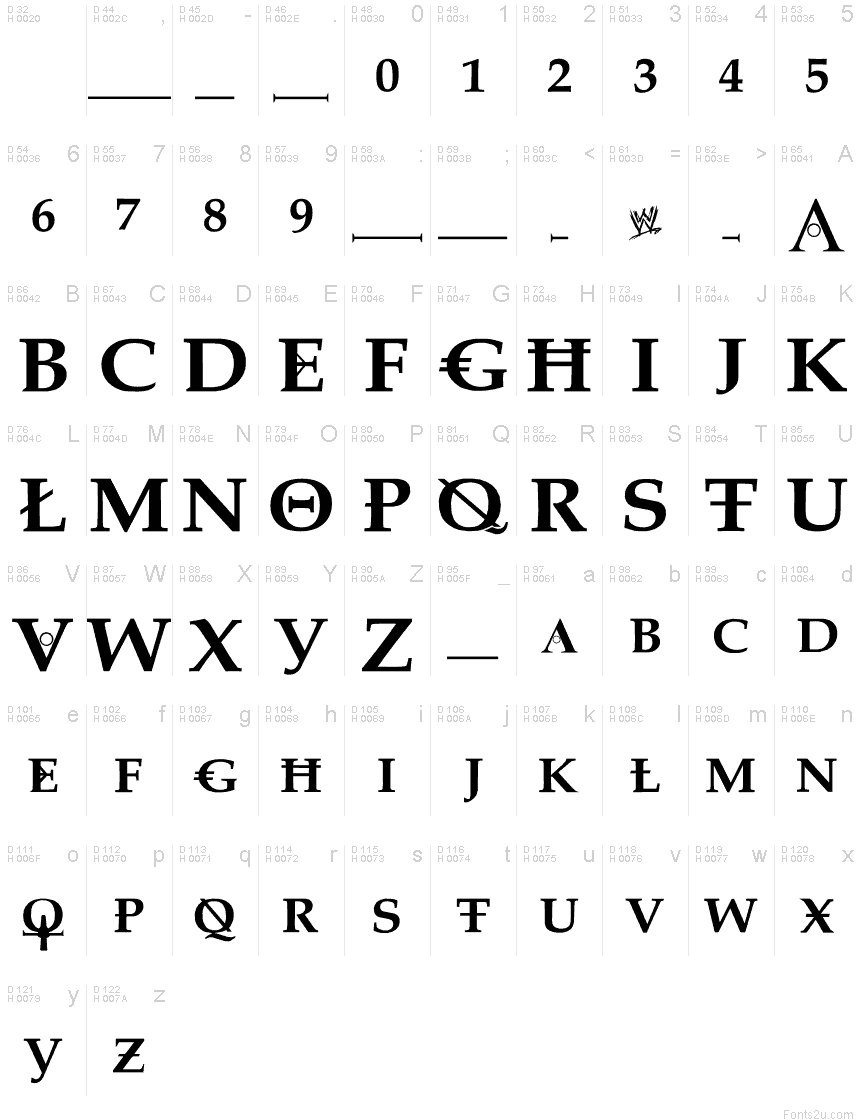
Dreaming of Lilian
Dreaming of Lilian font by Aenigmate Productions is a free decorative display typeface that fuses elegant serif letterforms with alchemical symbols and occult marks. Tall, poised characters slice across the line, while crosses, circles, and hooked strokes puncture the text like little ritual sigils. It has a crisp, inky presence that feels half bookplate, half arcane diagram, giving titles a slow-burning, enigmatic energy.
Using Dreaming of Lilian, you can brand dark fantasy novels, gothic band logos, tarot cards, witchy event posters, escape-room graphics, or occult-themed games with instant atmosphere. This free font thrives at large sizes where its symbolic details can breathe; pair it with a simple sans serif for body copy to keep the mystique readable and sharp.